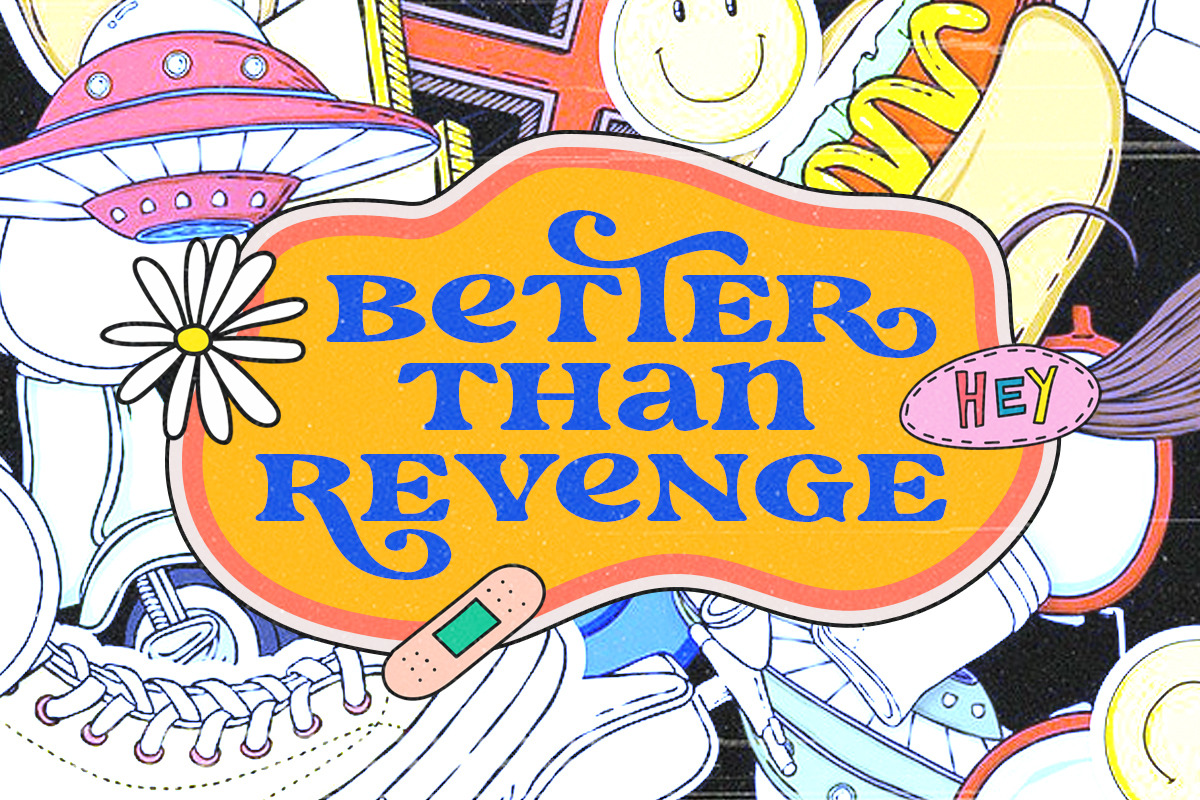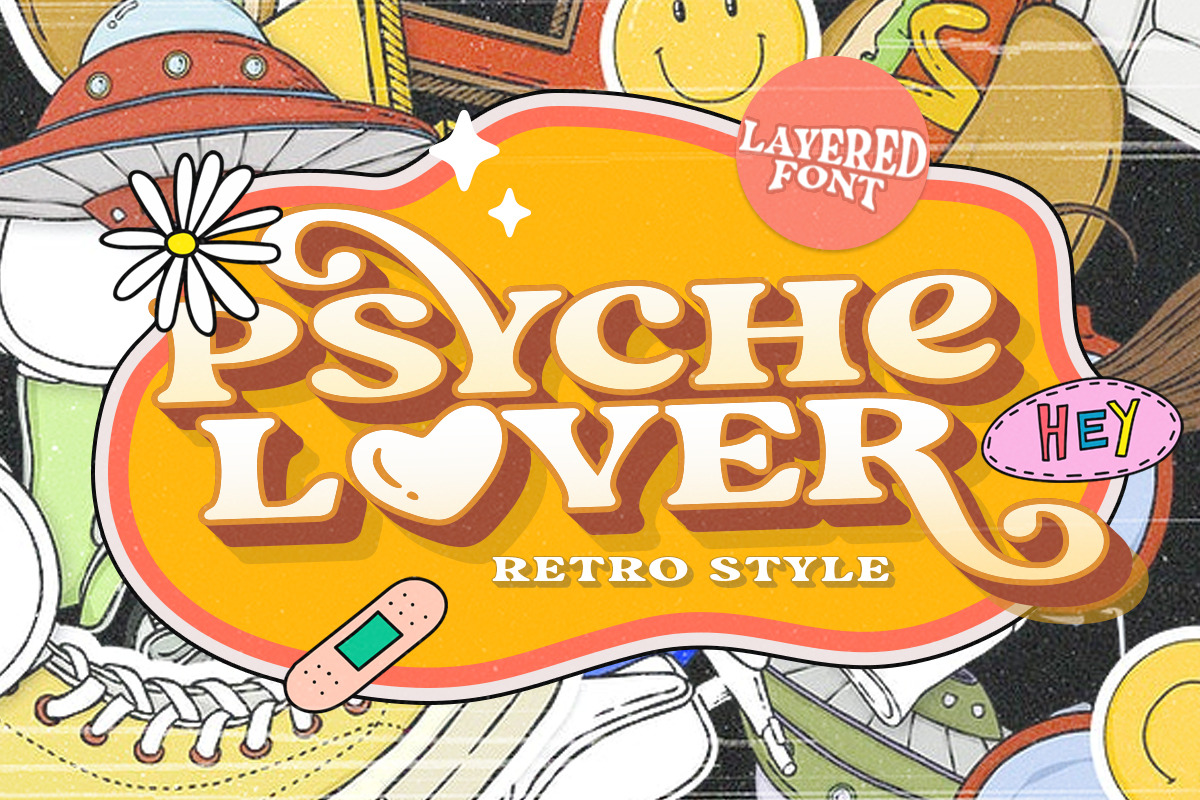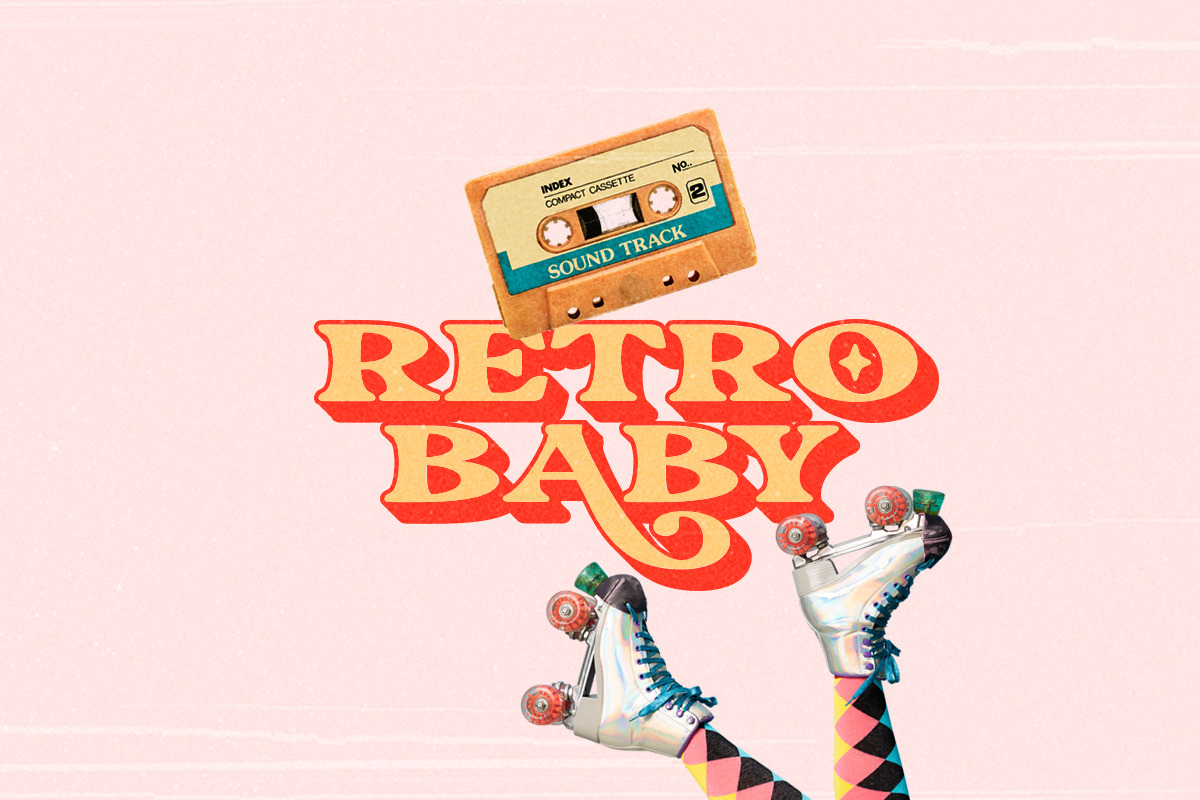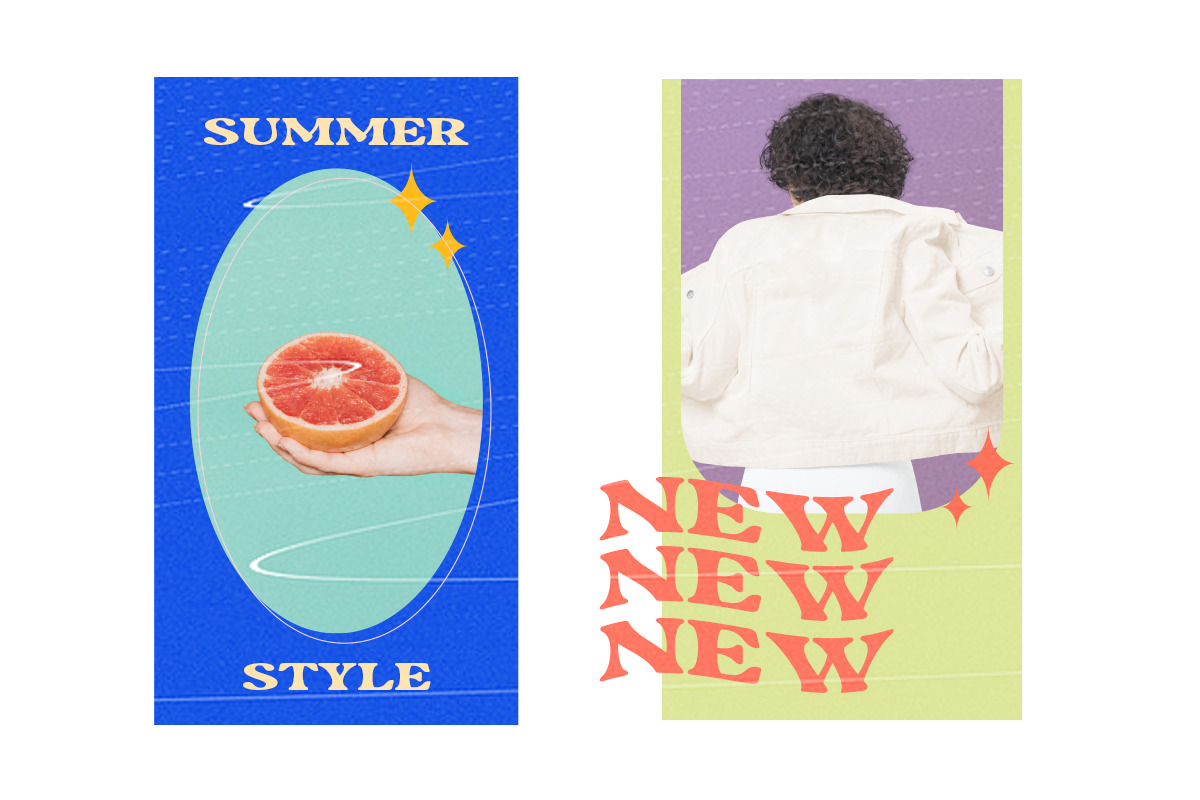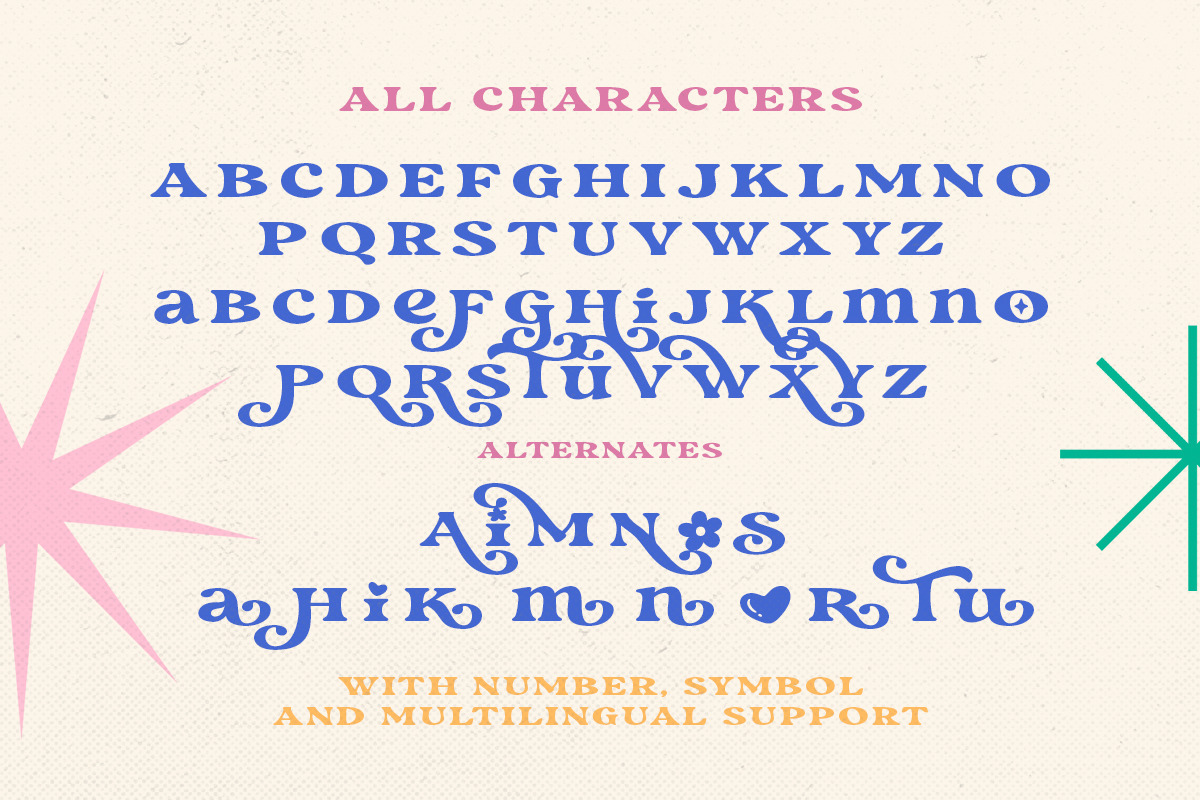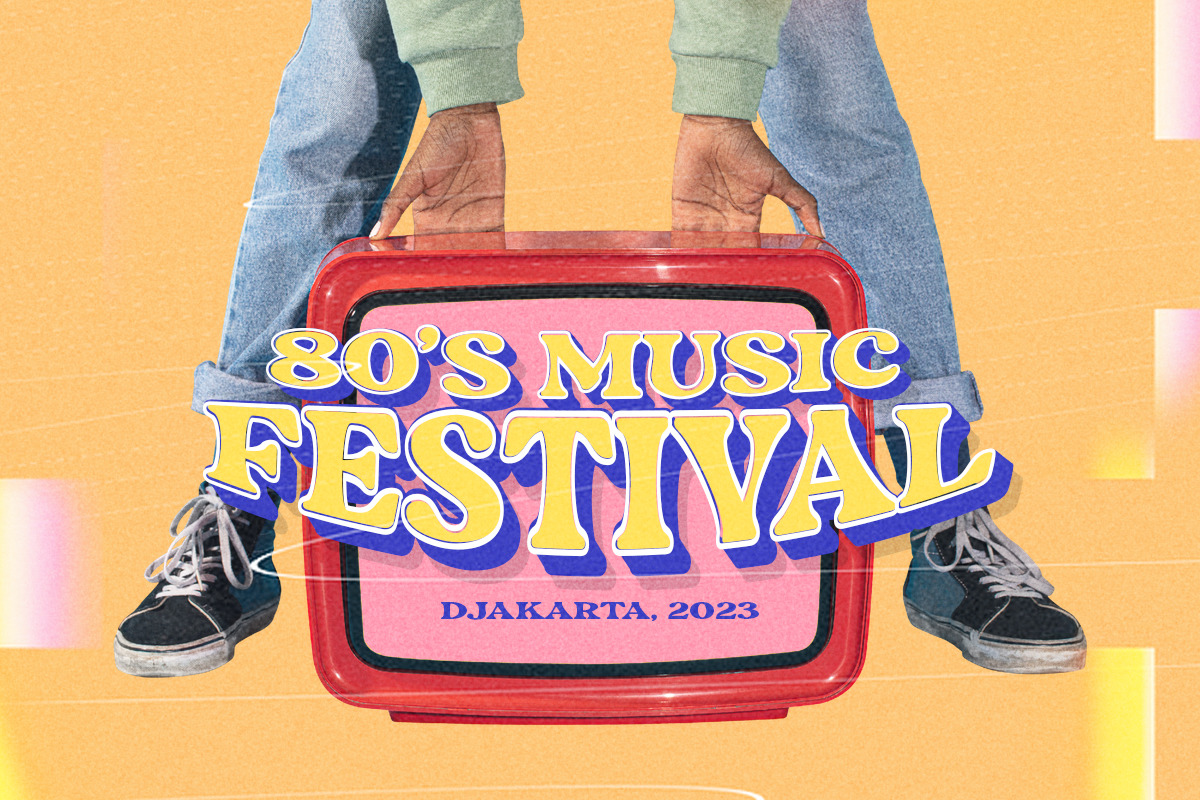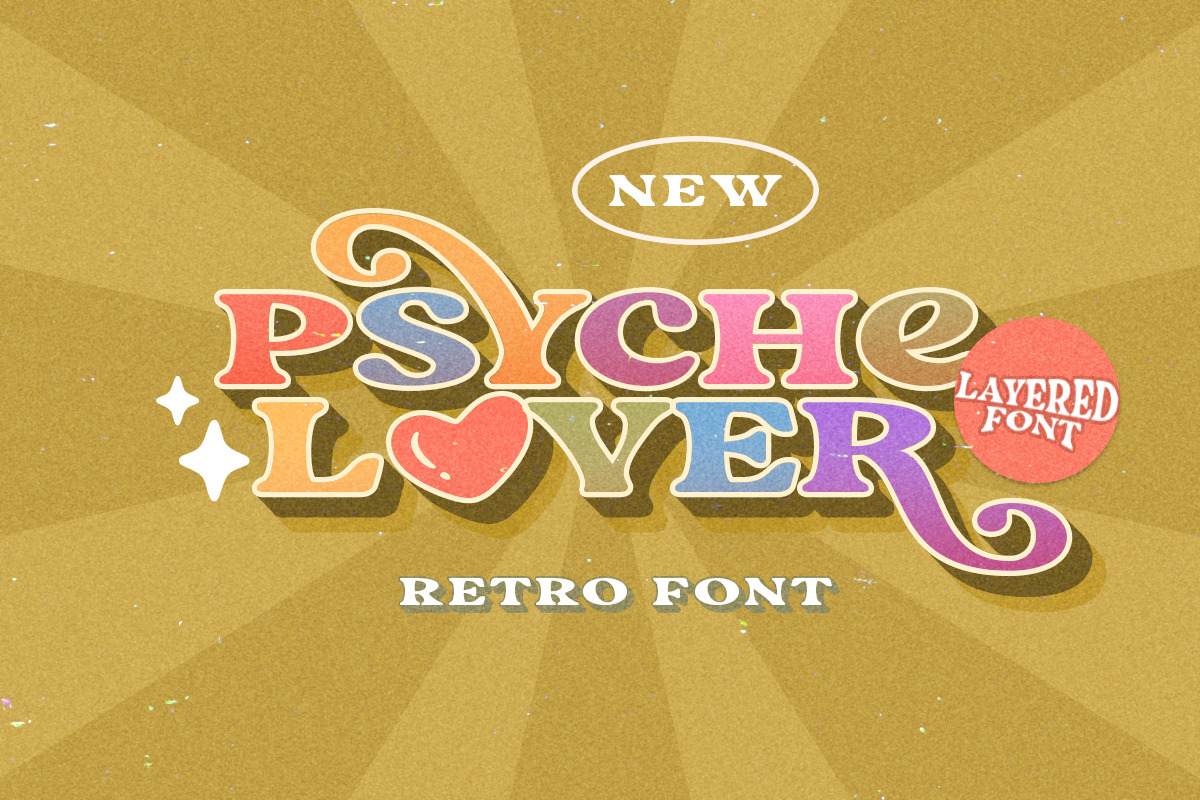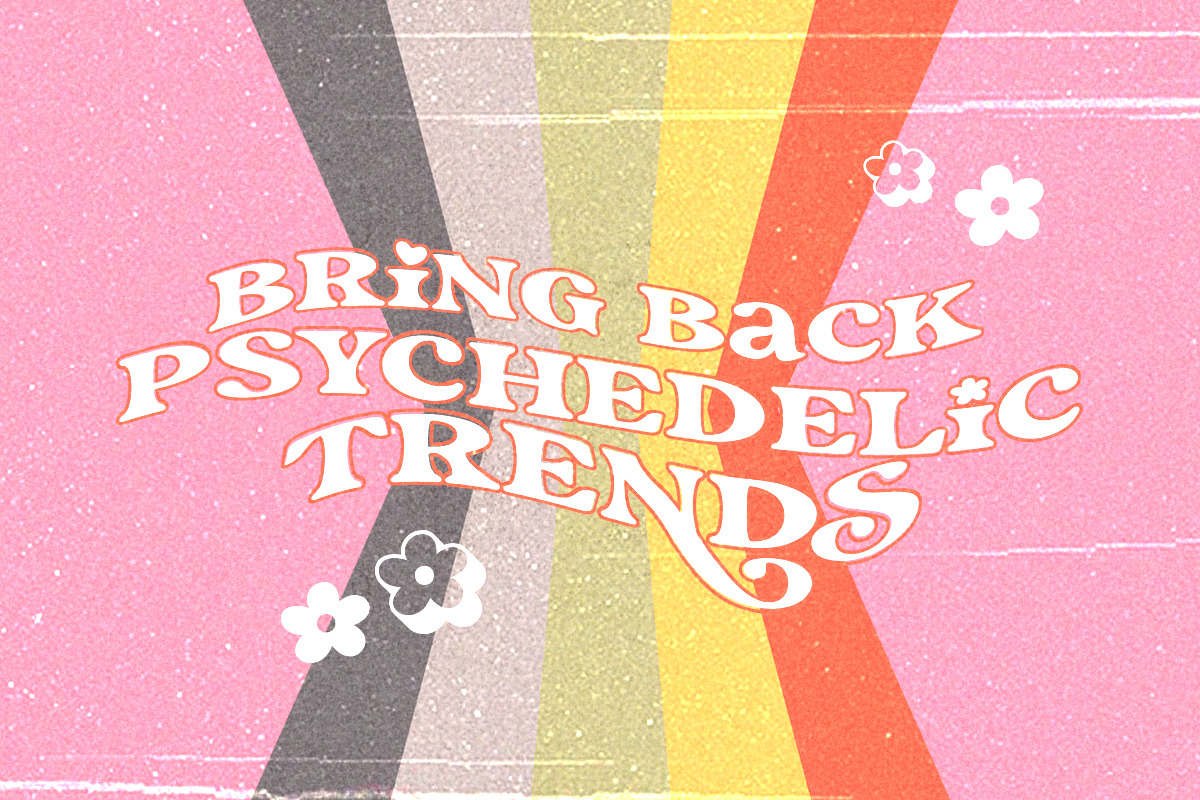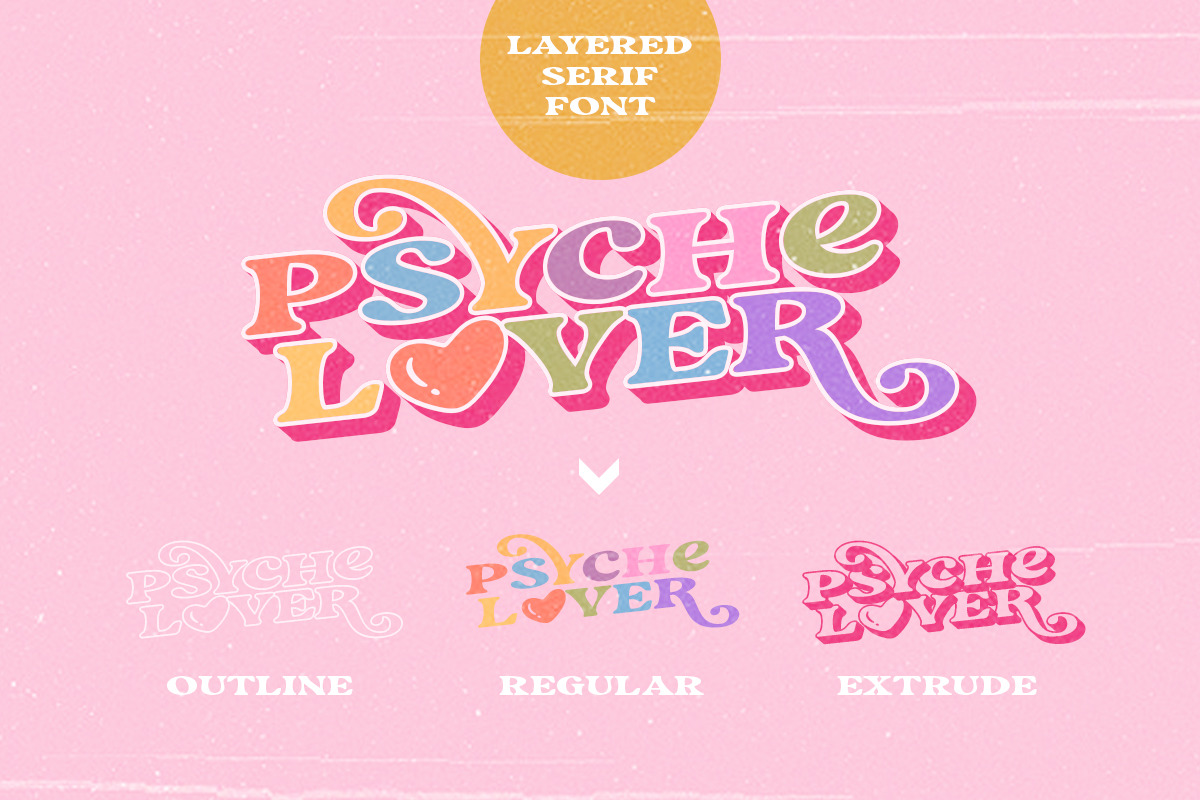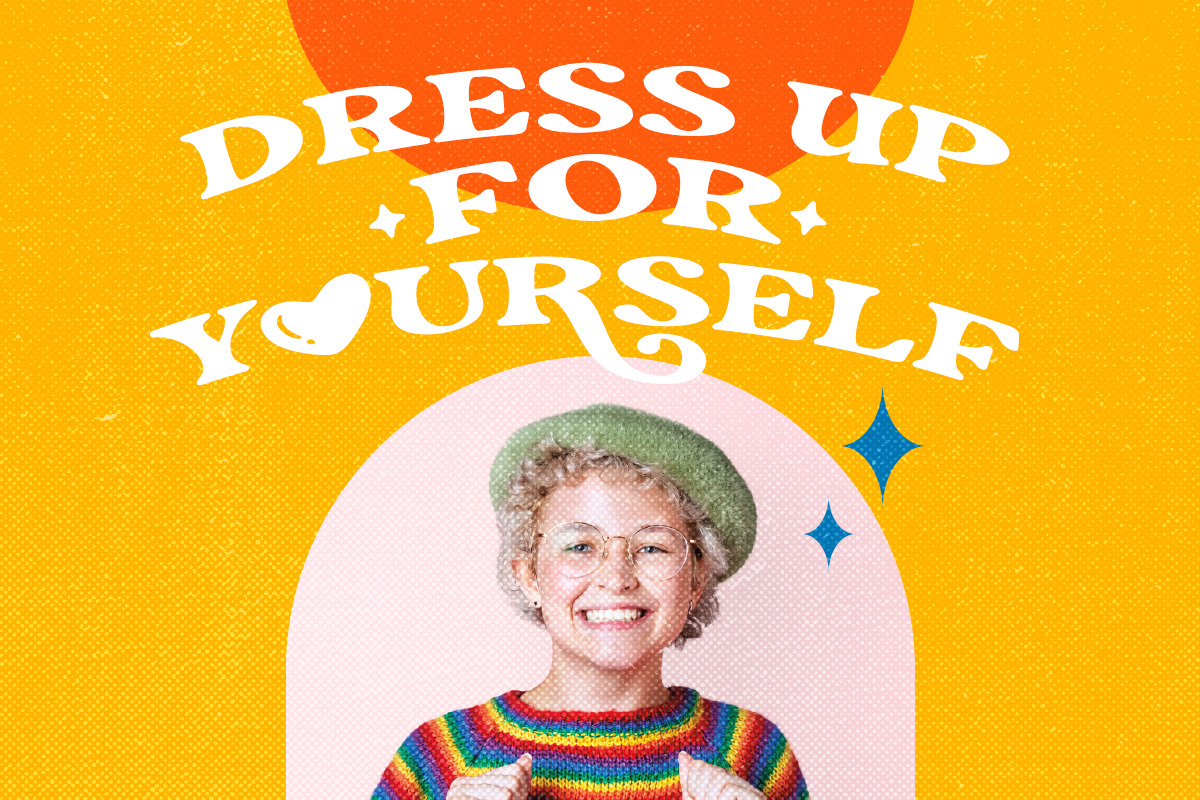
Psyche Lover - Layered Retro Font
Introducing, A NEW RETRO BOLD FONTS WITH STYLISH AND ICON ALTERNATES, Psyche lover!
Psyche lover is a retro font serif based that contains stylish alternates! You can make a unique branding retro and psychedelic designs with this fonts. This stylish bold fonts also included extrude and outline style that will compliments the regular style for more retro looks! This fonts suitable to use for poster, branding, merchandise, and any retro style! The "Love" shape also included in this font as an alternates for character "o". You can see all the alternates from preview above!! Also support multilingual and already PUA Encoded!